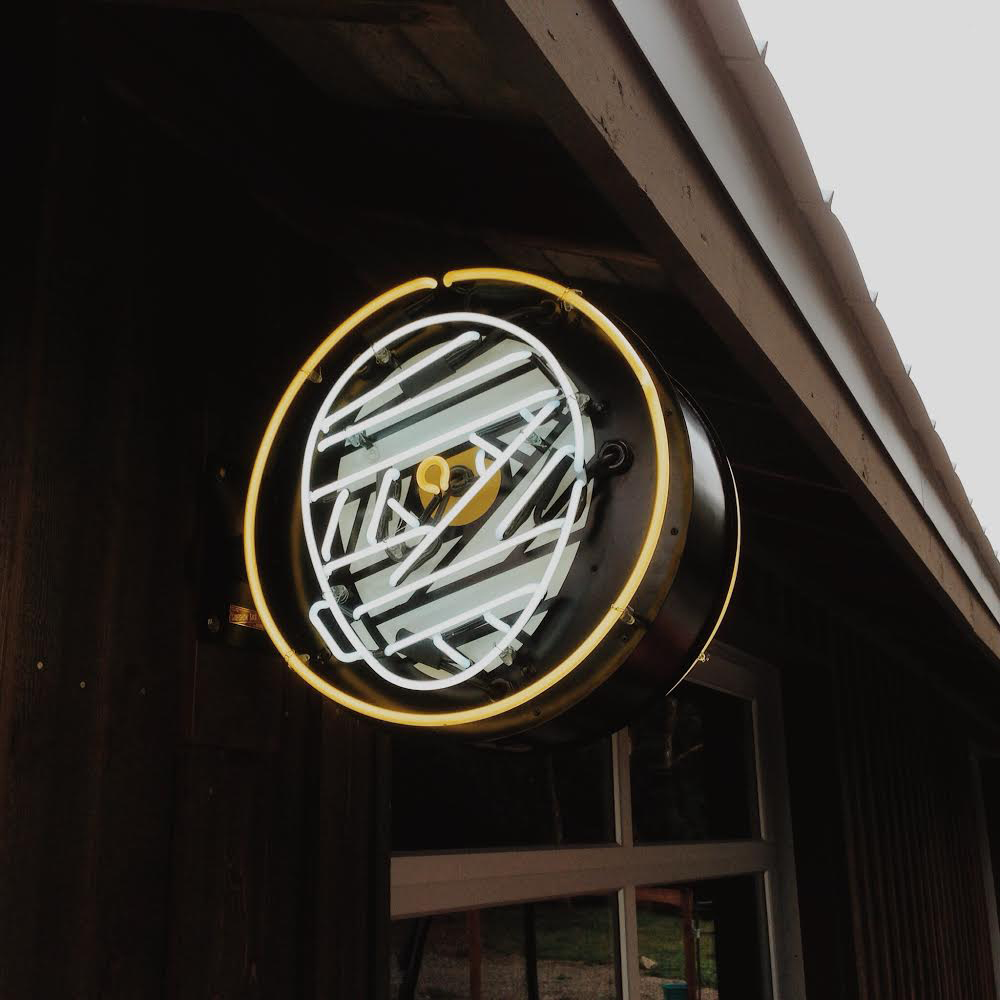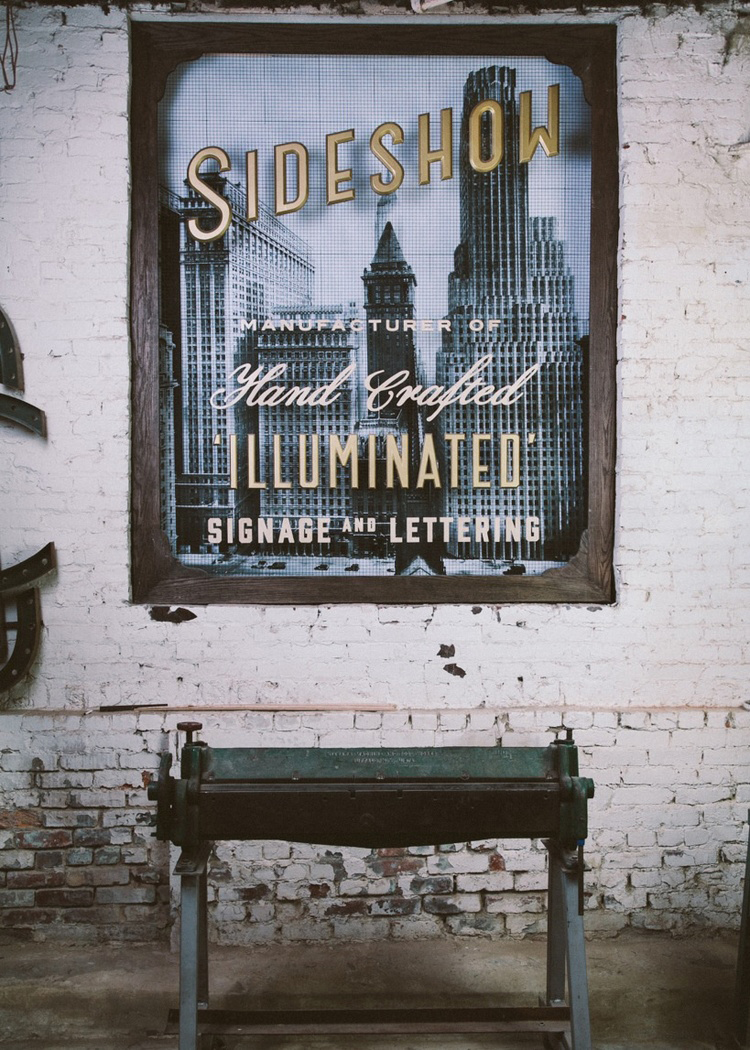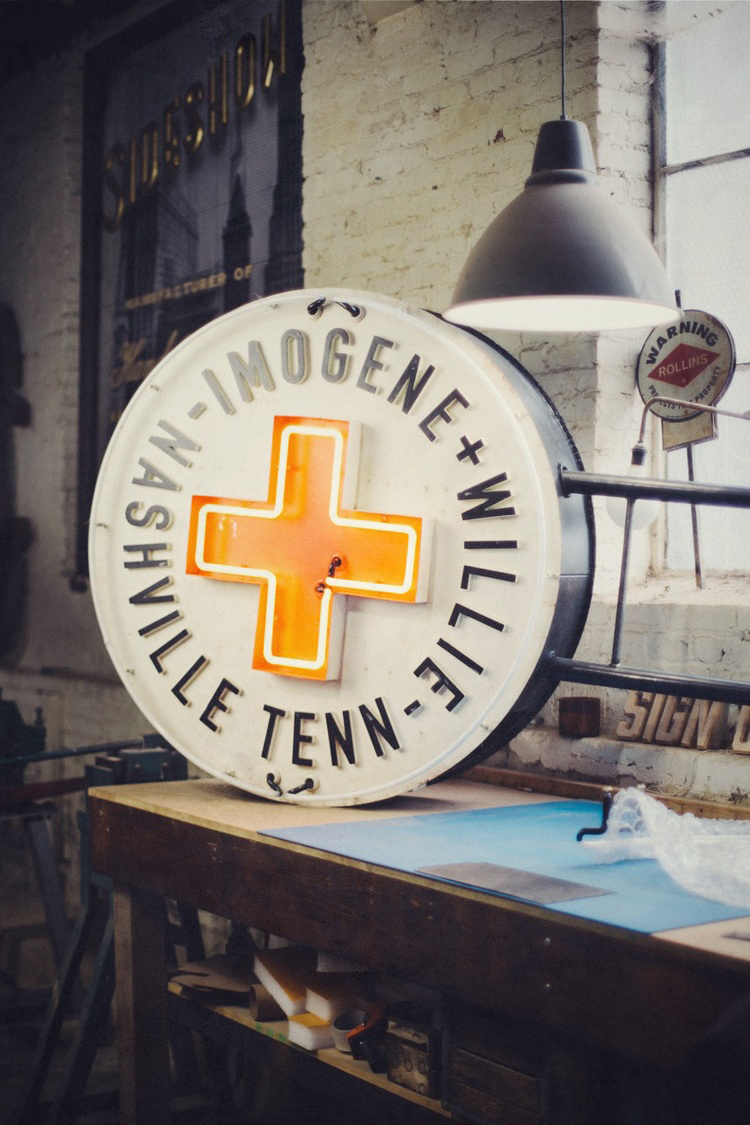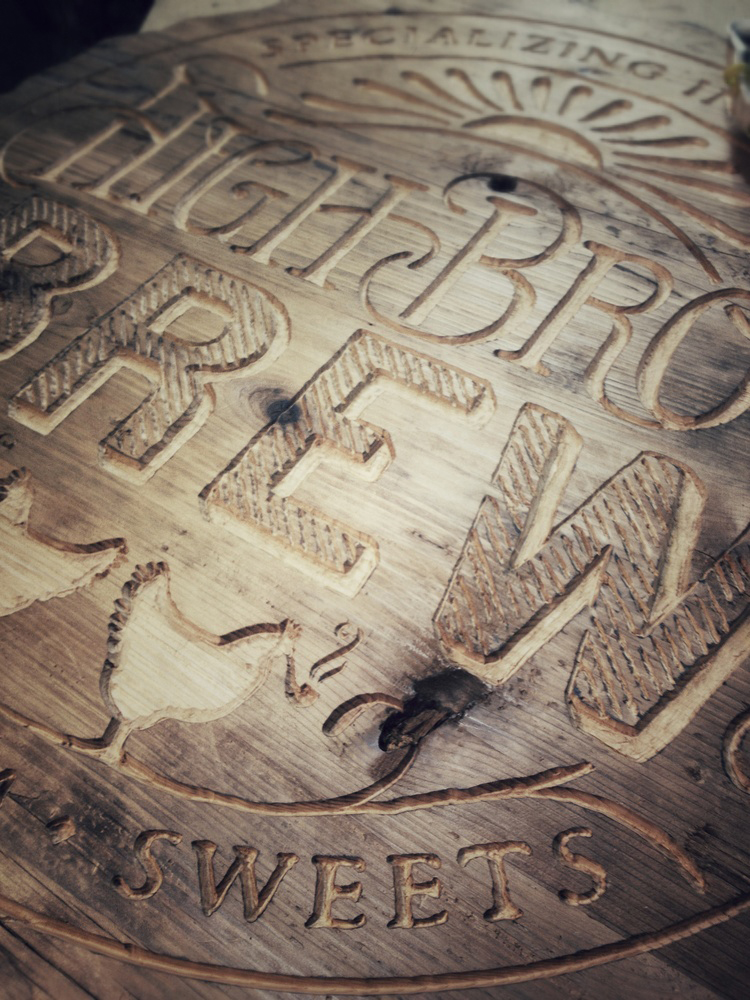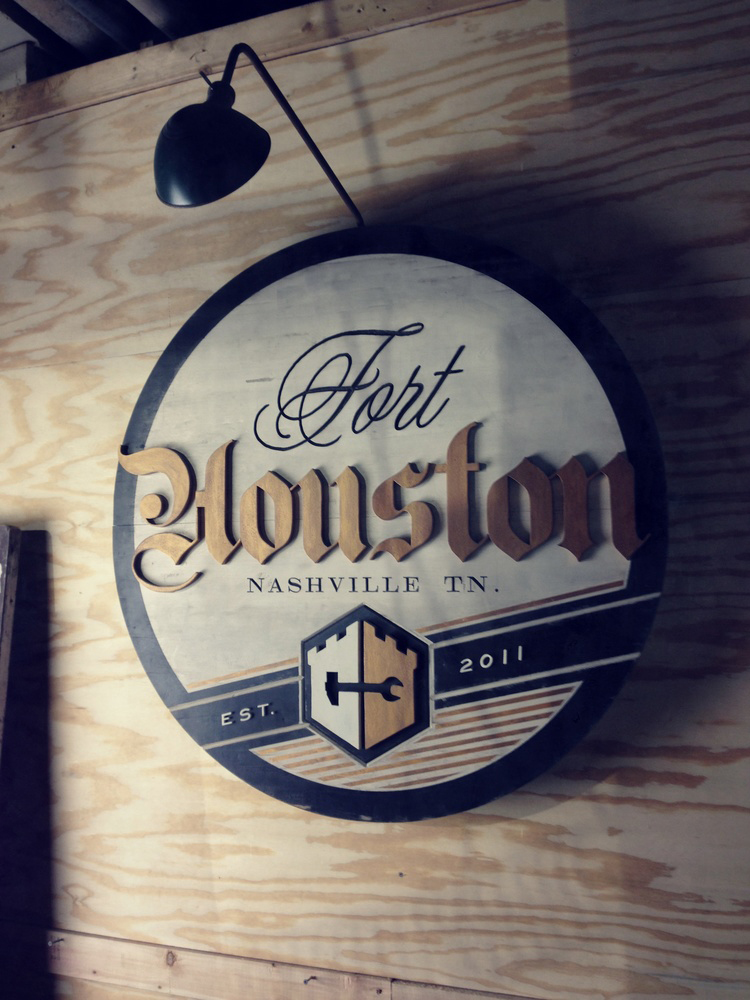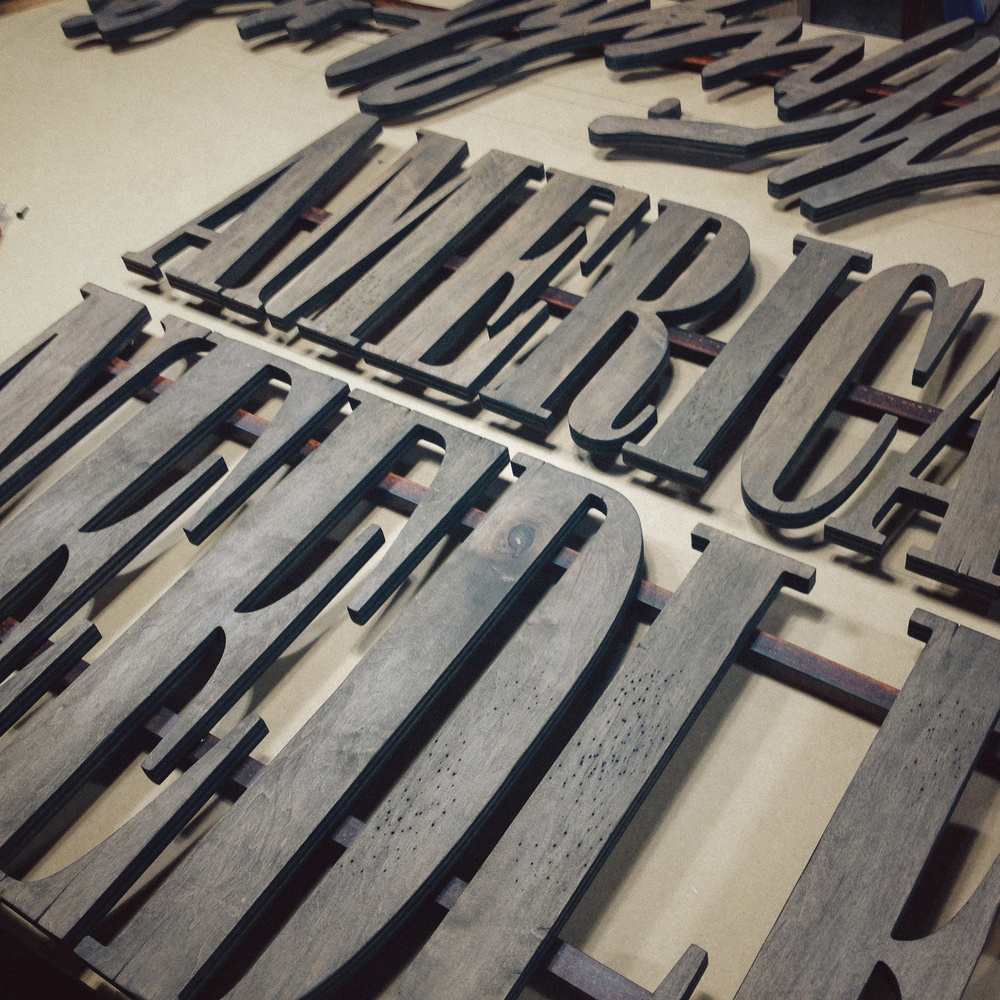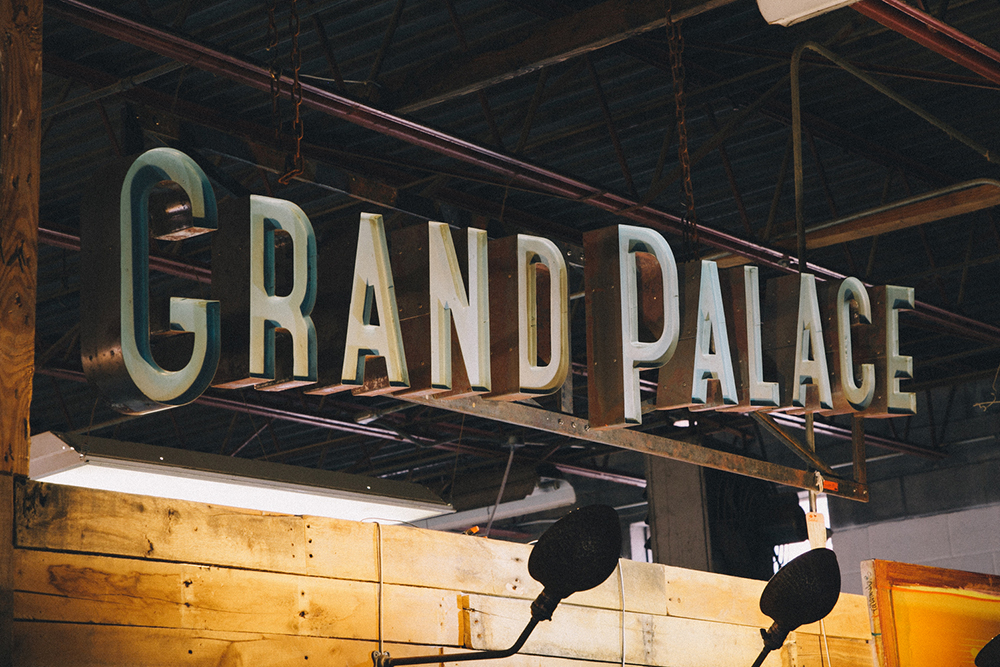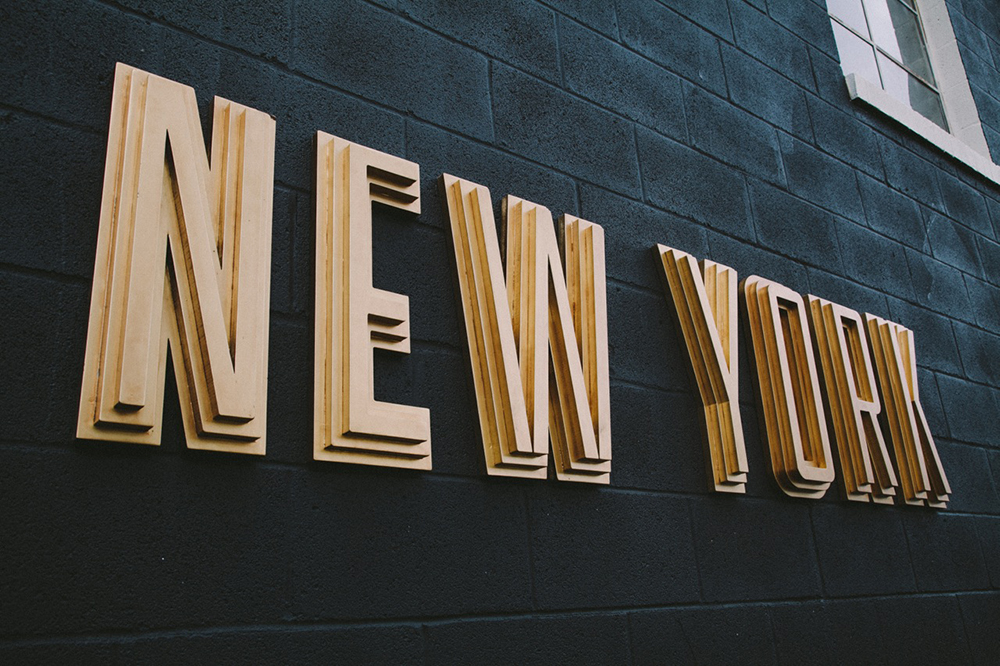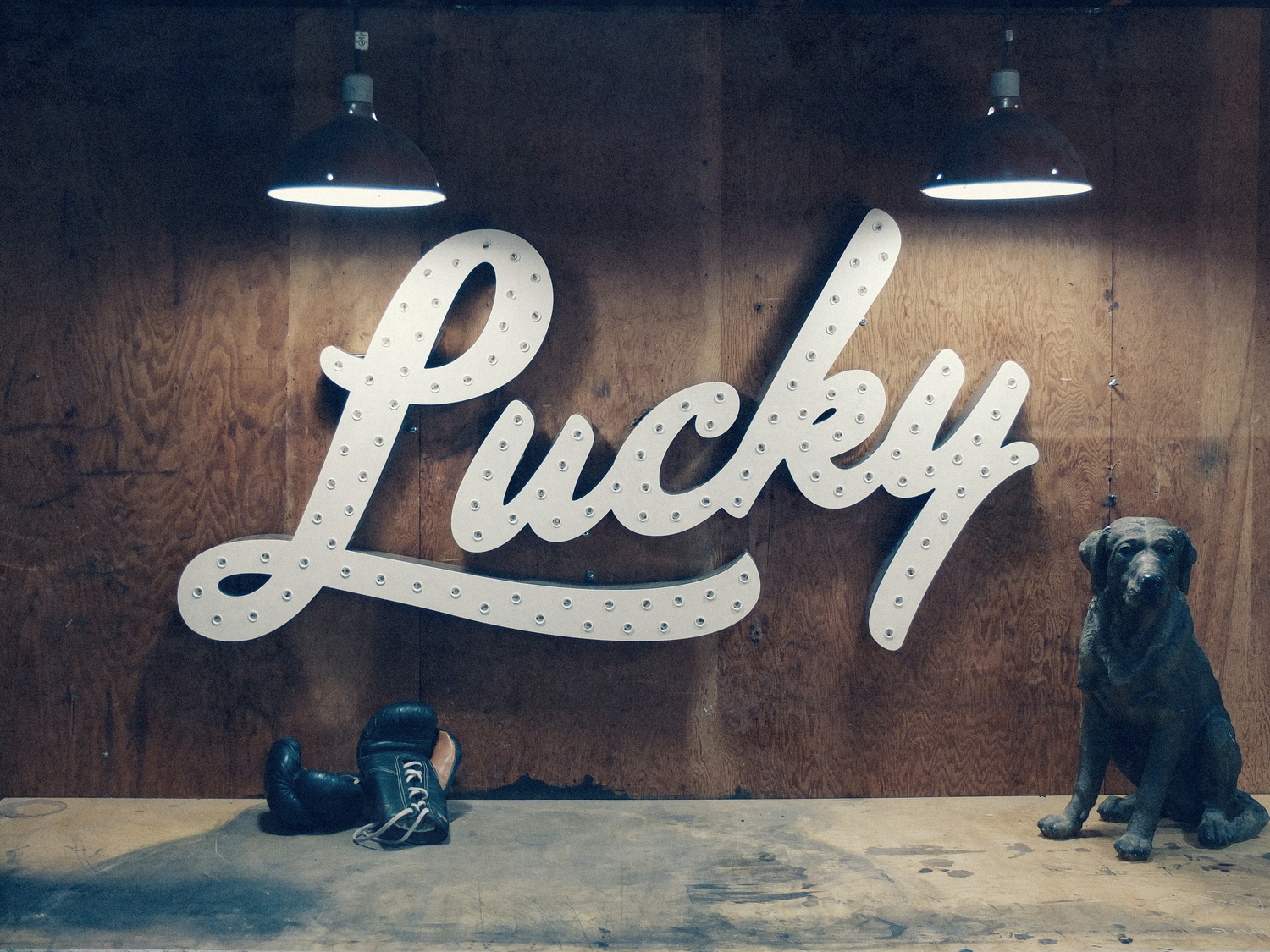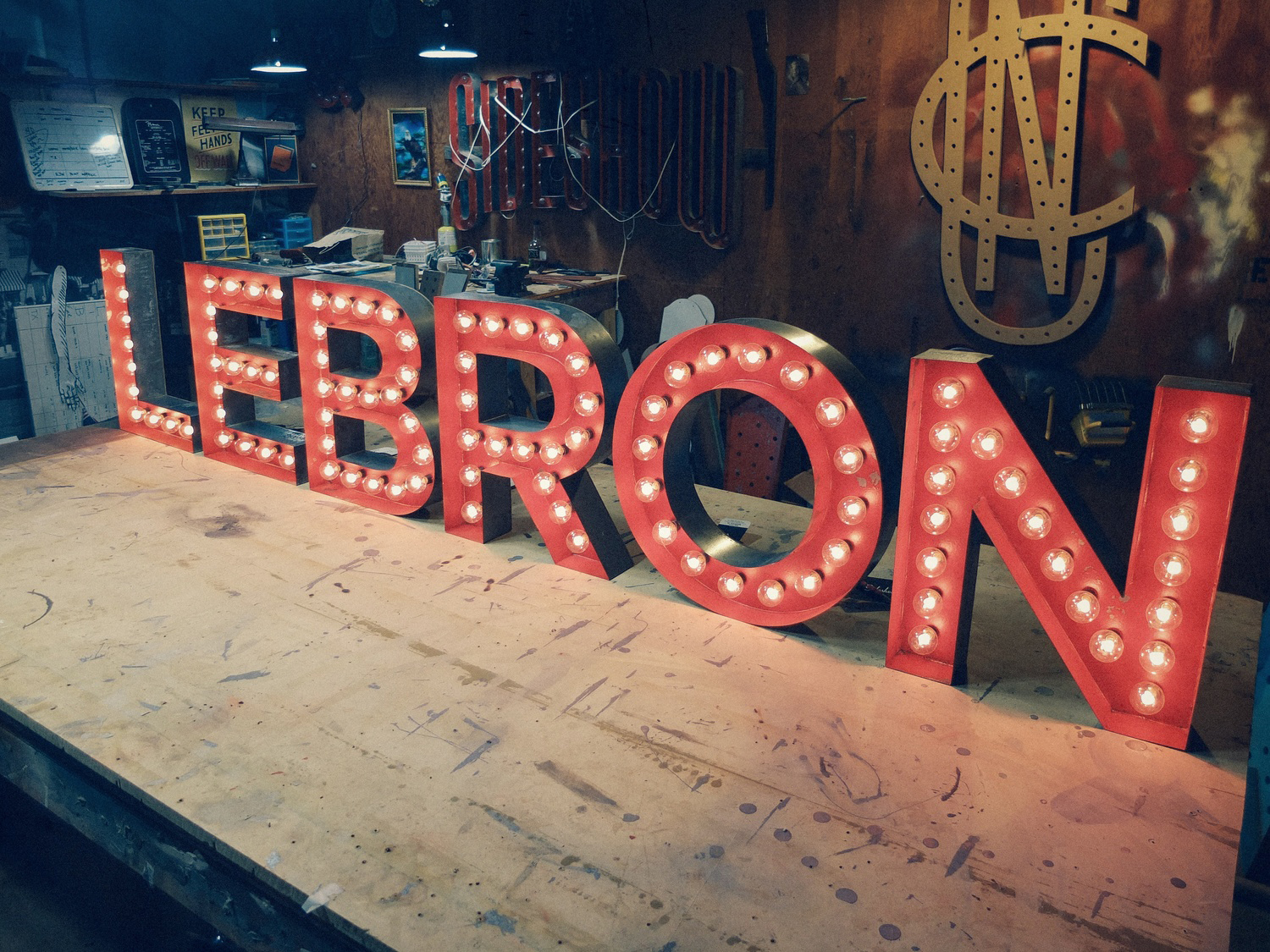
This extremely authentic handmade signage will brighten up our days
Due to our lack of a receptionist, we don’t make our phone number public”. It is more than obvious that the Sideshow Sign Co. prefers to create than talk and their vintage typographic signs will sure steal any heart. After all resisting an amazingly crafted marquee sign is literally impossible, especially if it is one of those giant typographic sculptures that Luke Stockdale and his team bring into life. “Signage is one of the earliest forms of communication design. In the past several decades however, designers and sign-makers have often regarded themselves as separate industries, divided by class, application, and a misunderstanding of just how important their relationship is. Its our opinion that these two worlds need to be in equal collaboration in order for signage to be the best it can be - to be what it is intended to be: an effective reflection of the hard work and sophistication that goes into the businesses that it is promoting” says the team of three.
Founded by the Australian native Luke (who brought his printing techniques along with him when he relocated to the States), the company works passionately to reintroduce the partnership of high-end design and traditional fabrication to the sign industry. Having studied at RMIT in Melbourne and on some of the oldest printing presses in Australia, Stockdale is passionate about reviving the traditional art of sign-making in a market crowded with cold-lit aluminum and plastic wrapped signage and he has two allies in achieving this vision of his.
“It is our dream that, sign-by-sign, streetscapes once again become distinctive”
Adam Gaskill, AKA “The Coonman”, a Tennessee native with a fine arts degree in sculpture and print who has an eye for design and an old-world work ethic and Jasmin Kaset. A native of Cottontown, Tennessee, Jas is Luke’s wife and Director at Sideshow. “With the introduction of affordable automated sign equipment & materials in the early 80’s, the sign industry began distancing itself from traditional techniques in favor of efficiency. Although these technologies have dramatically increased affordability for the customer, they simultaneously closed the door on sign-making practices that - while more time consuming - often resulted in higher quality, more stylish signs that had character & ageless beauty”.
Working with typography and design-for-print, it’s no wonder that their extensive portfolio (from vintage scientific tables to retro eye charts) has been featured in magazines like WIRED and ESPN. Carefully prepping and printing each canvas until its final top-of-the-line state, Sideshow Sign Co. focuses on craftsmanship and attention-to-detail rather than mass-production. “It is our dream that, sign-by-sign, streetscapes once again become distinctive and the hard work involved in building a business is reflected in its signage, and more importantly, be an element of beauty” says the team which will make sure good typography rules our habitat once again.